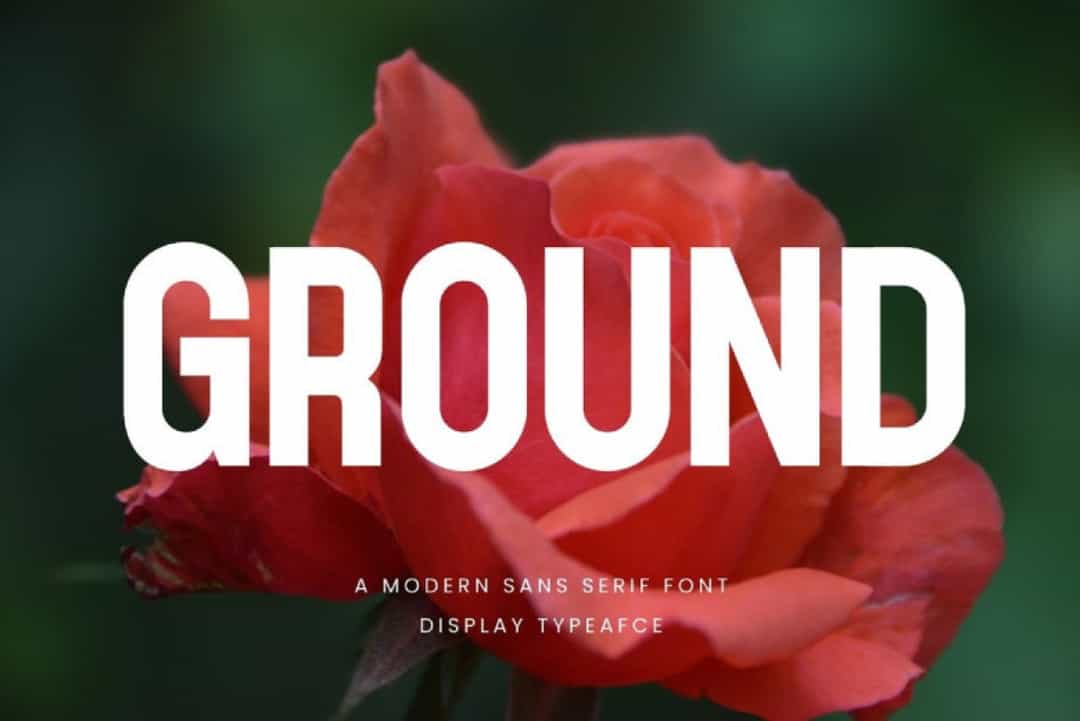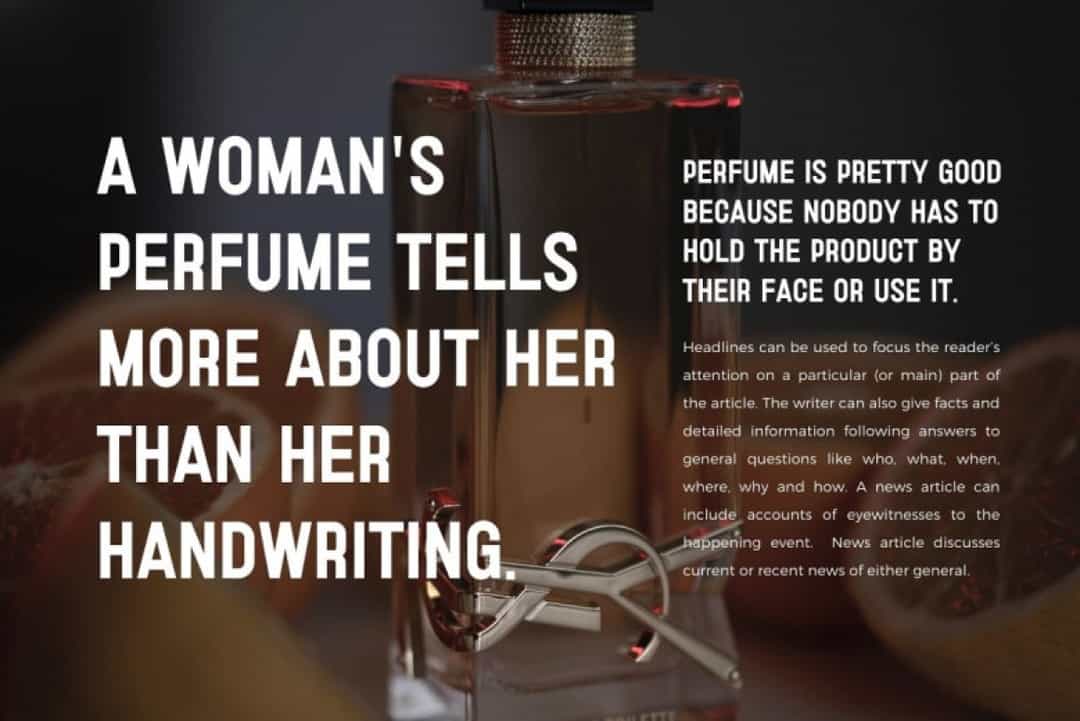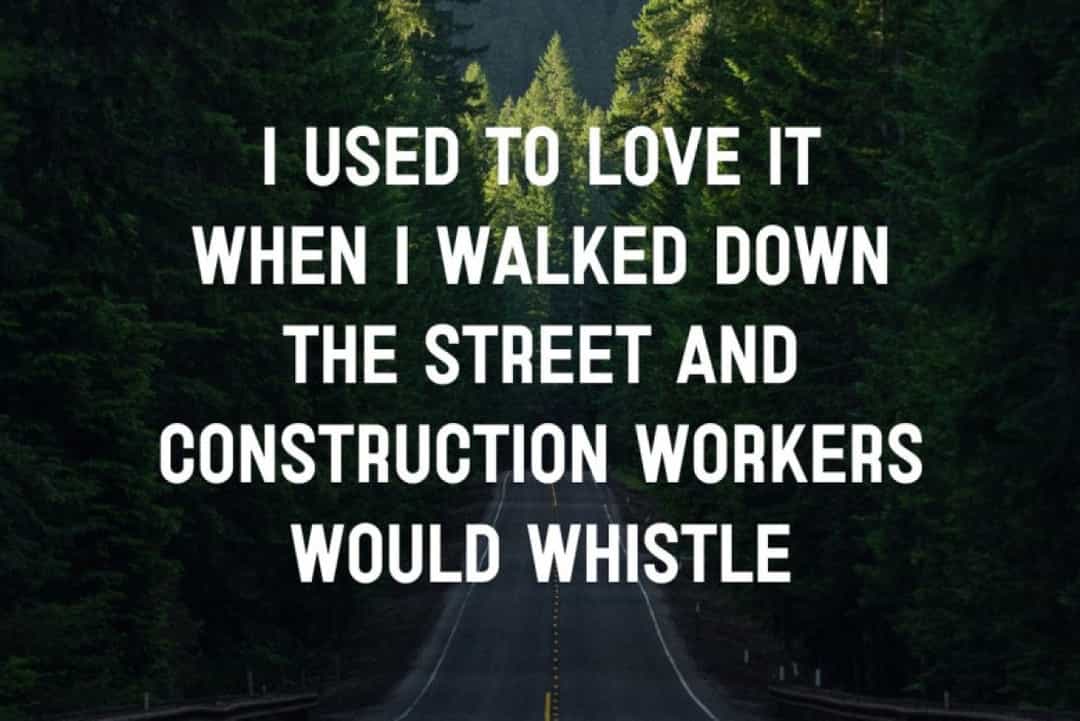
Discover Ground Font, part of the Sans Serif collection—a versatile and unique font perfect for adding a personal touch to your projects. Download it for free and enjoy crafting designs with style, from invitations to social media posts. This font is available exclusively for personal use, giving you the freedom to create without limits. Unlock your creativity with Ground Font today!
Ground Modern Sans Serif Font is inspired by renowned minimalist logo design, making it suitable for use when creating brochures, templates videos ads logos advertisements invitation designs layouts exquisite crafting beauty design and more.